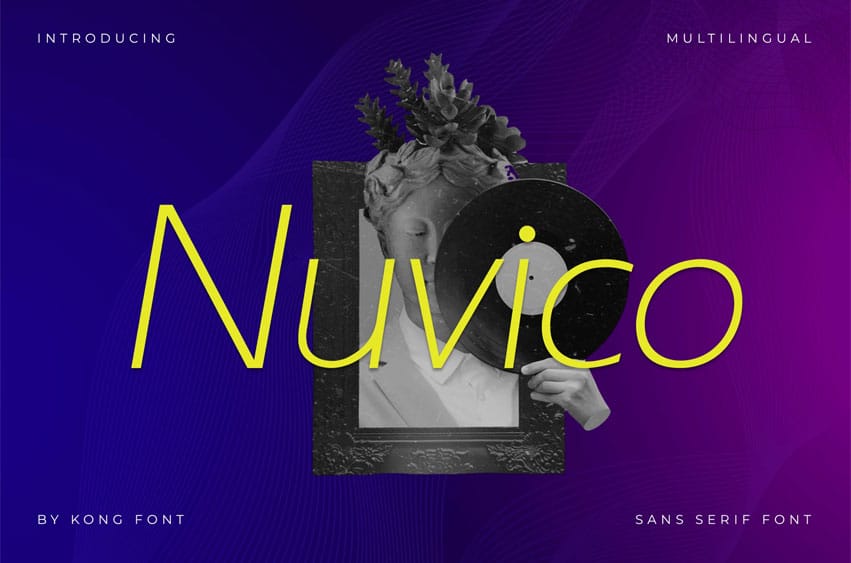
Nuvico Font is a clean and versatile sans serif font crafted for modern branding and design. With its sleek lines, balanced proportions, and minimalistic style, Nuvico brings a sense of professionalism and contemporary charm to any project. Ideal for corporate branding, editorial layouts, websites, packaging, and user interfaces, this typeface ensures excellent readability while maintaining a stylish and polished look.
Nuvico includes uppercase and lowercase characters, numbers, punctuation, and multilingual support, making it an essential asset for designers aiming for functionality without compromising on aesthetic appeal.
Whether you’re building a brand identity or refining a digital experience, Nuvico provides a solid typographic foundation with modern sensibility.